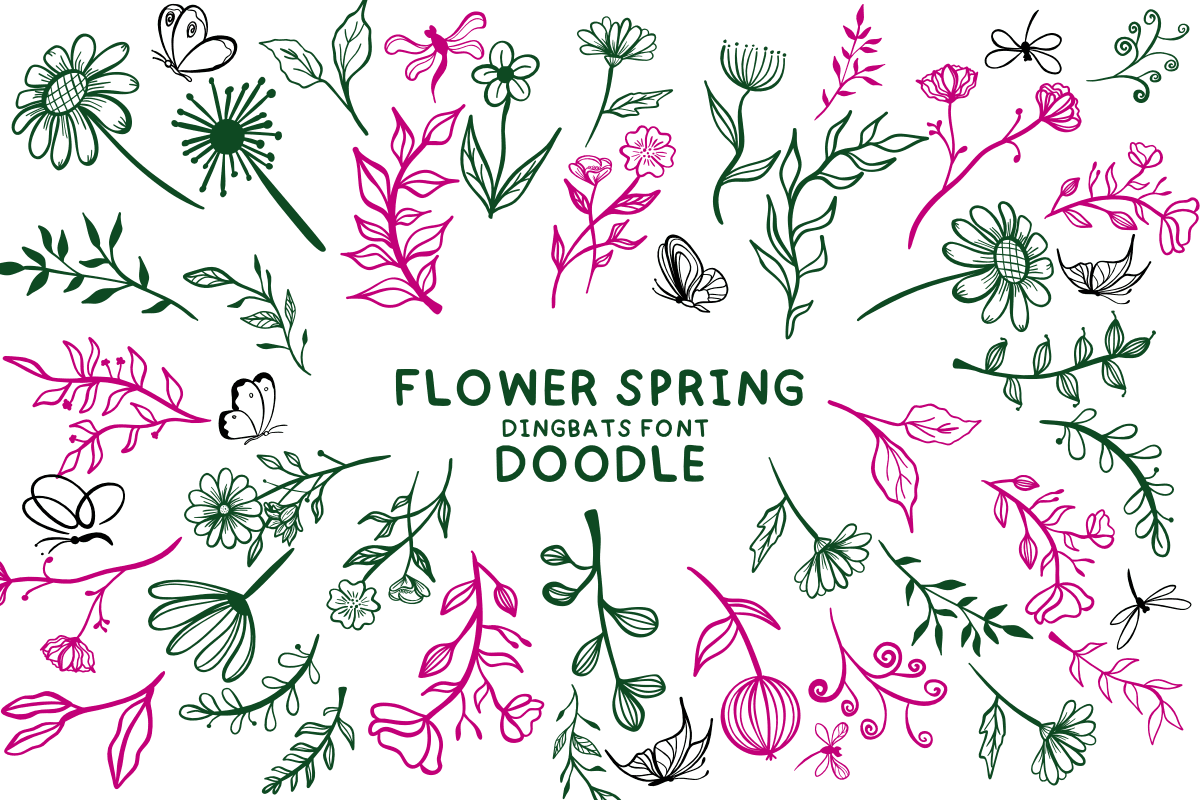
Flower Spring Doodle Font: ๐ Check out Flower Spring Doodle Font now! Explore this ๐ dingbats fonts and claim your ๐ free download here. Let's start crafting together! ๐ Embark on a delightful exploration of design with Flower Spring Doodle, a ca...